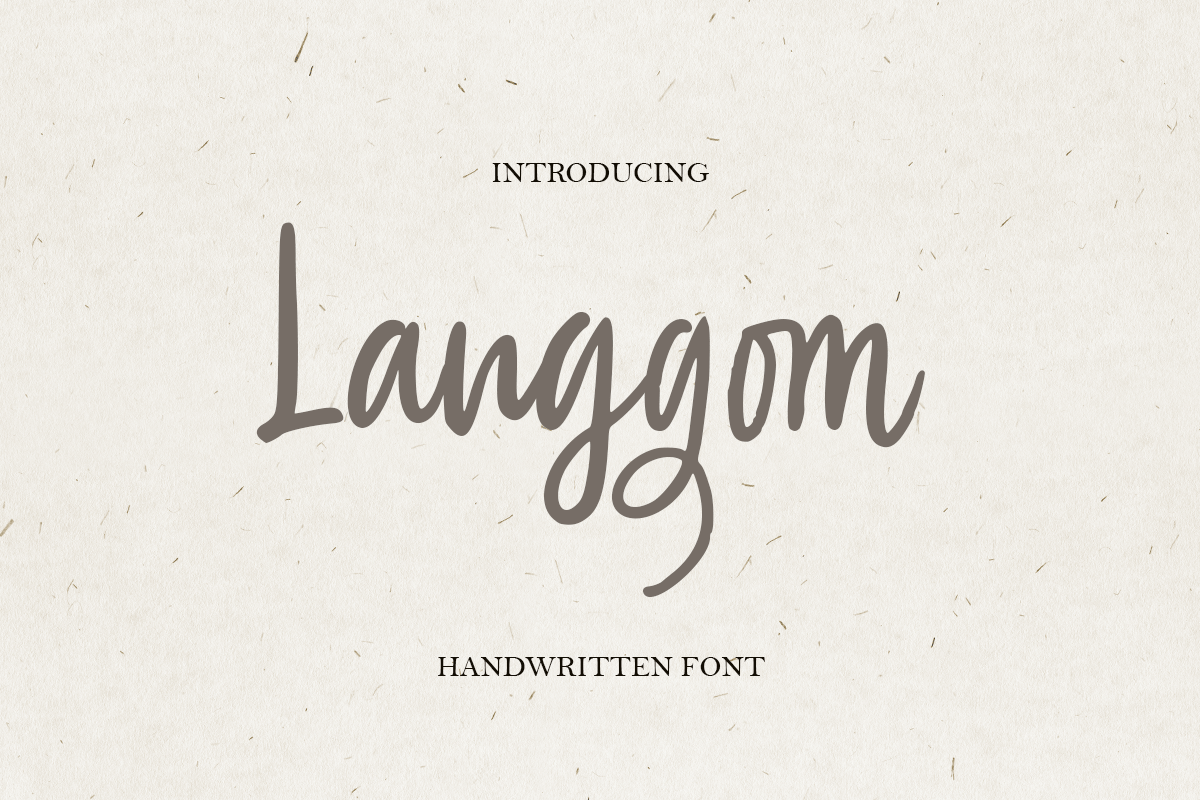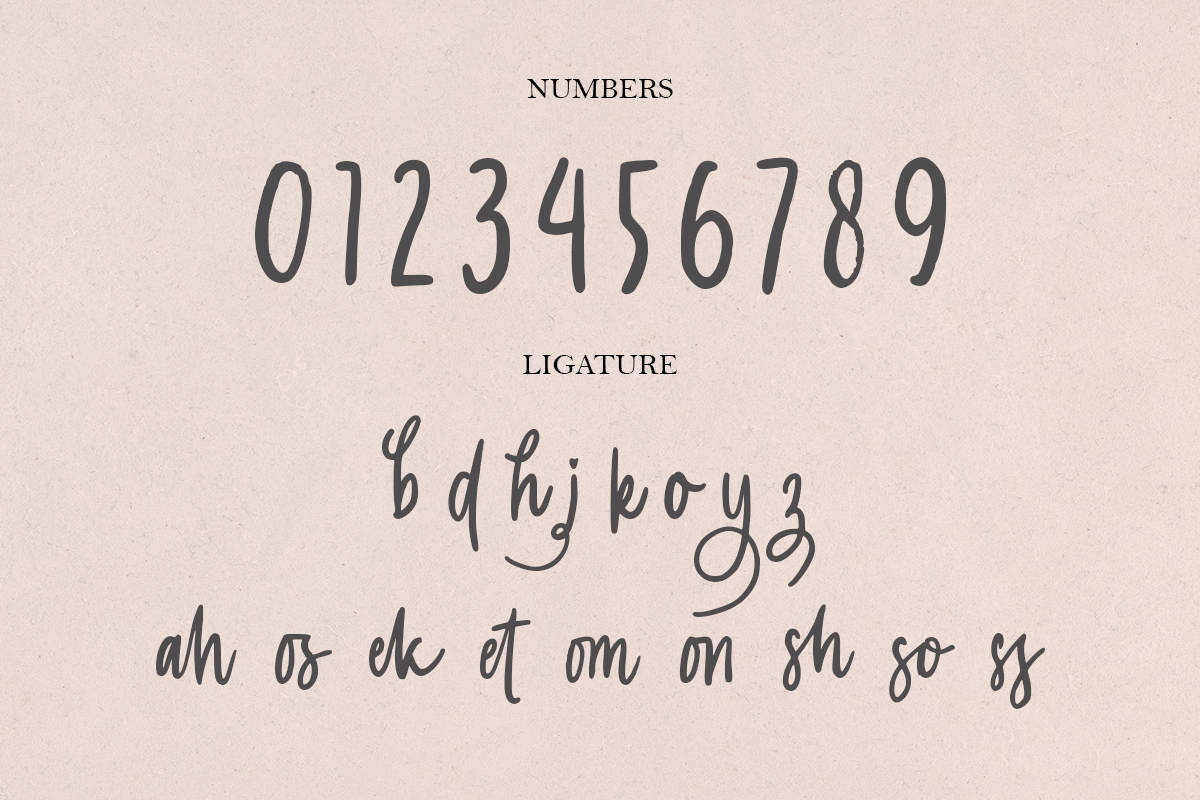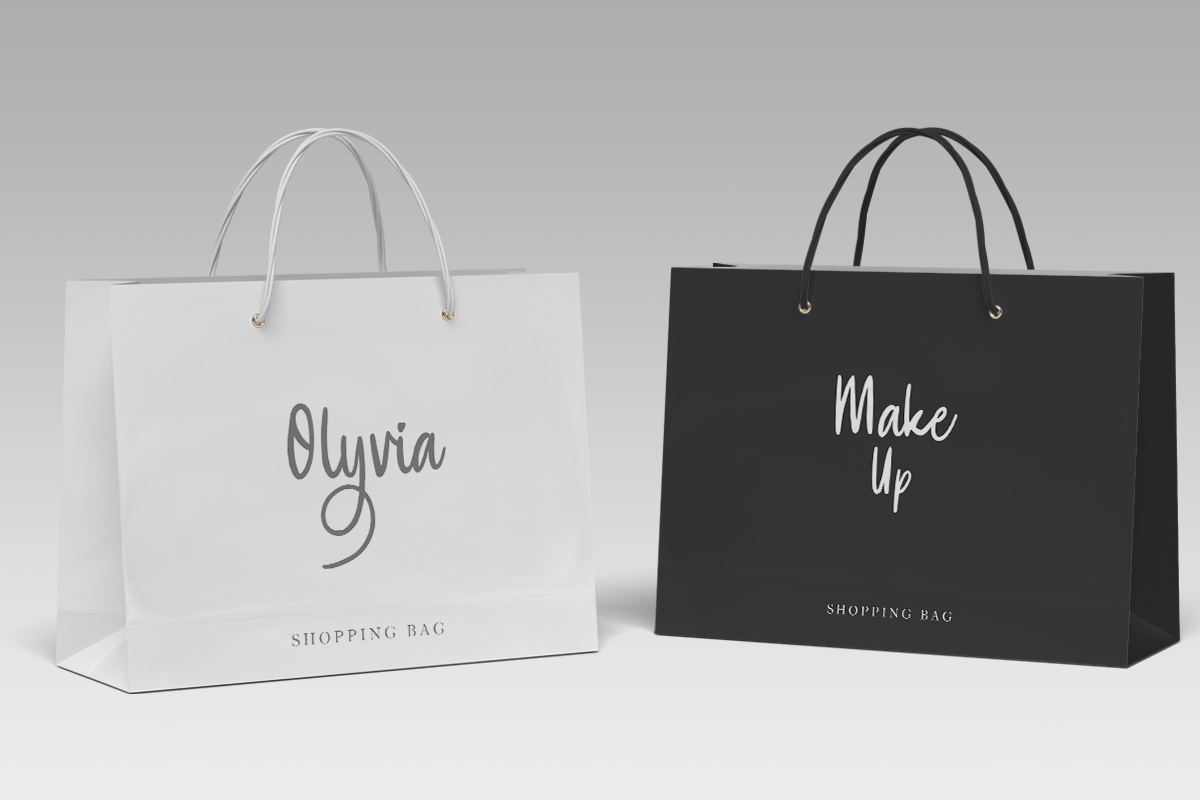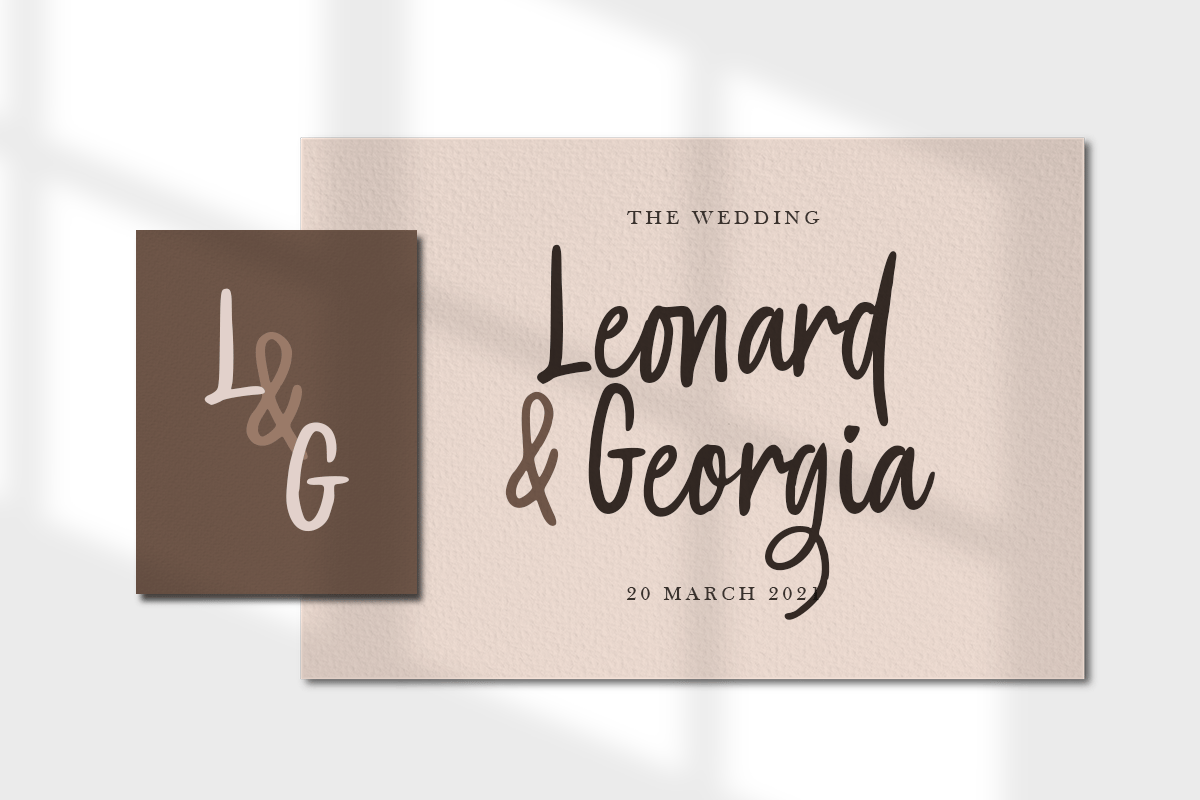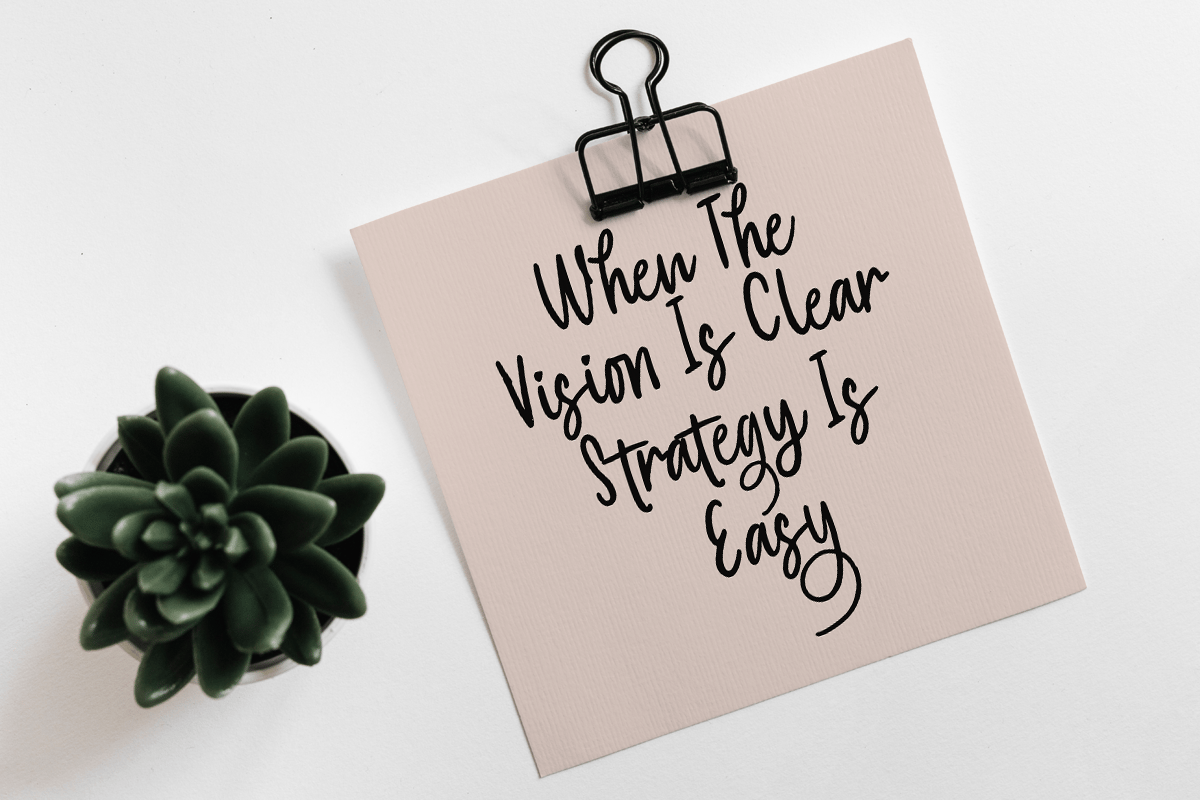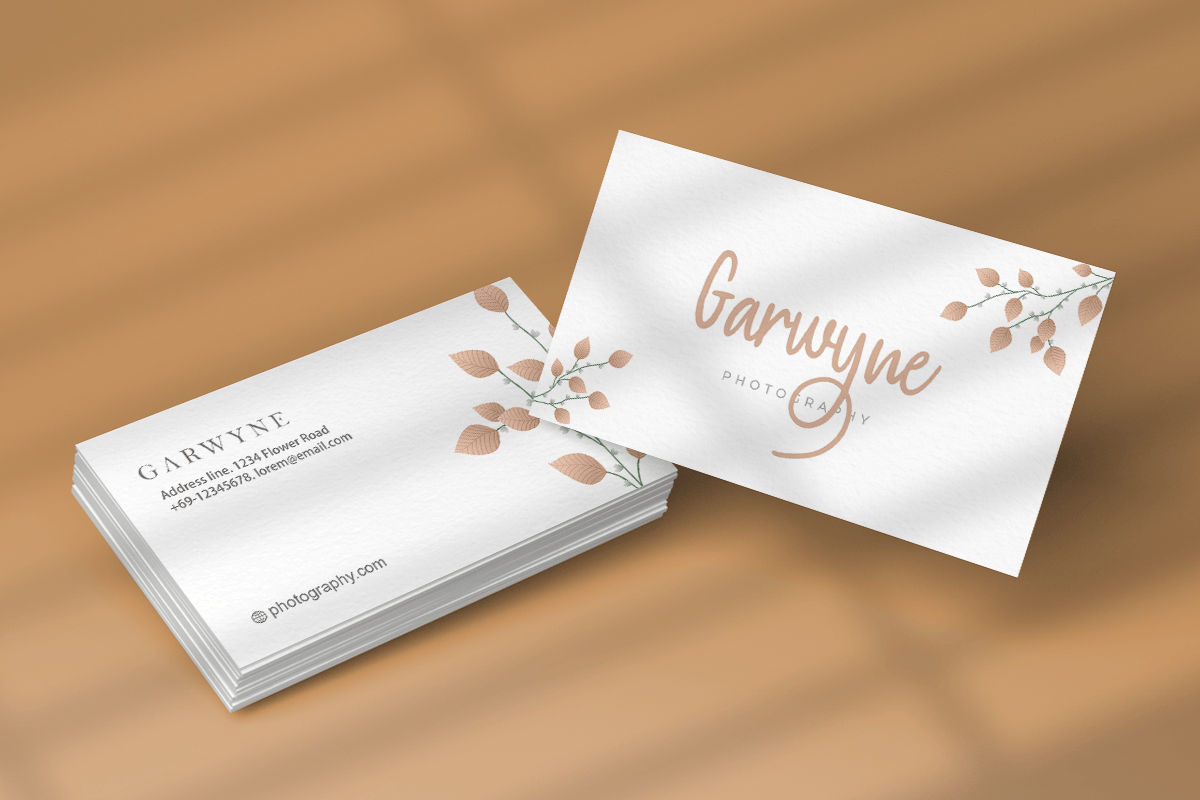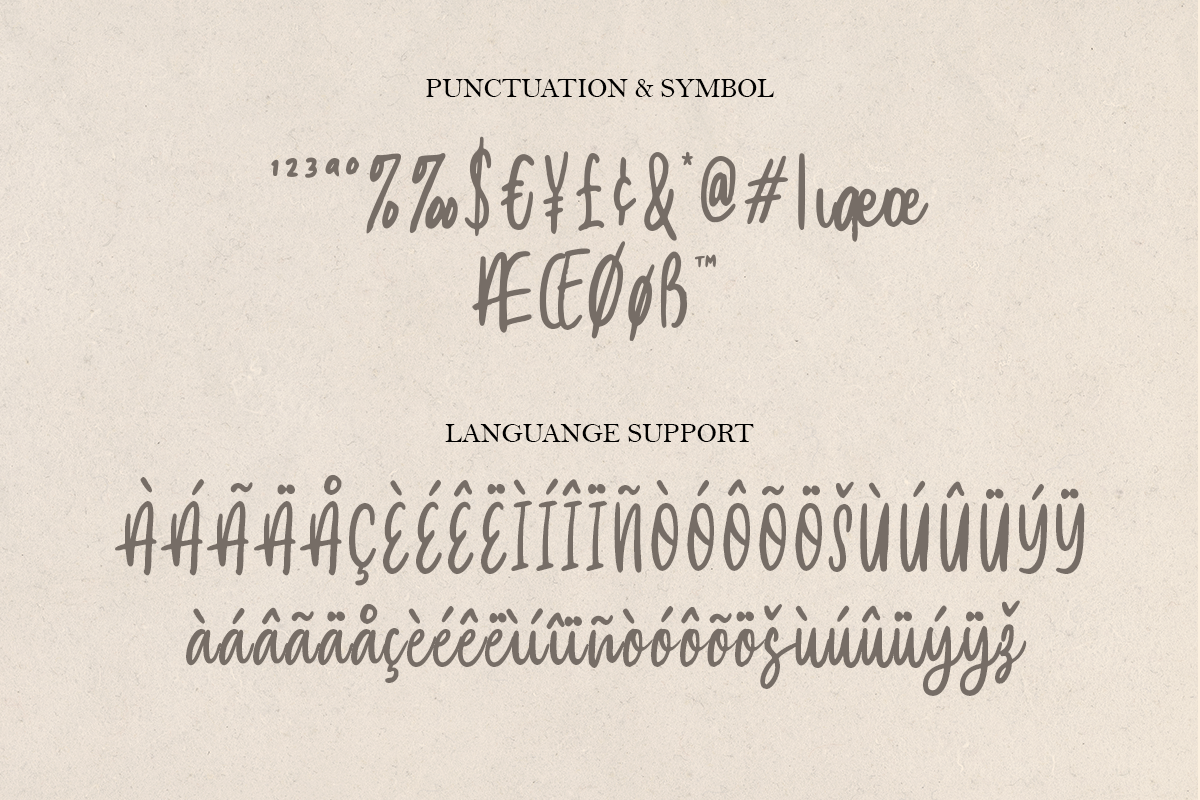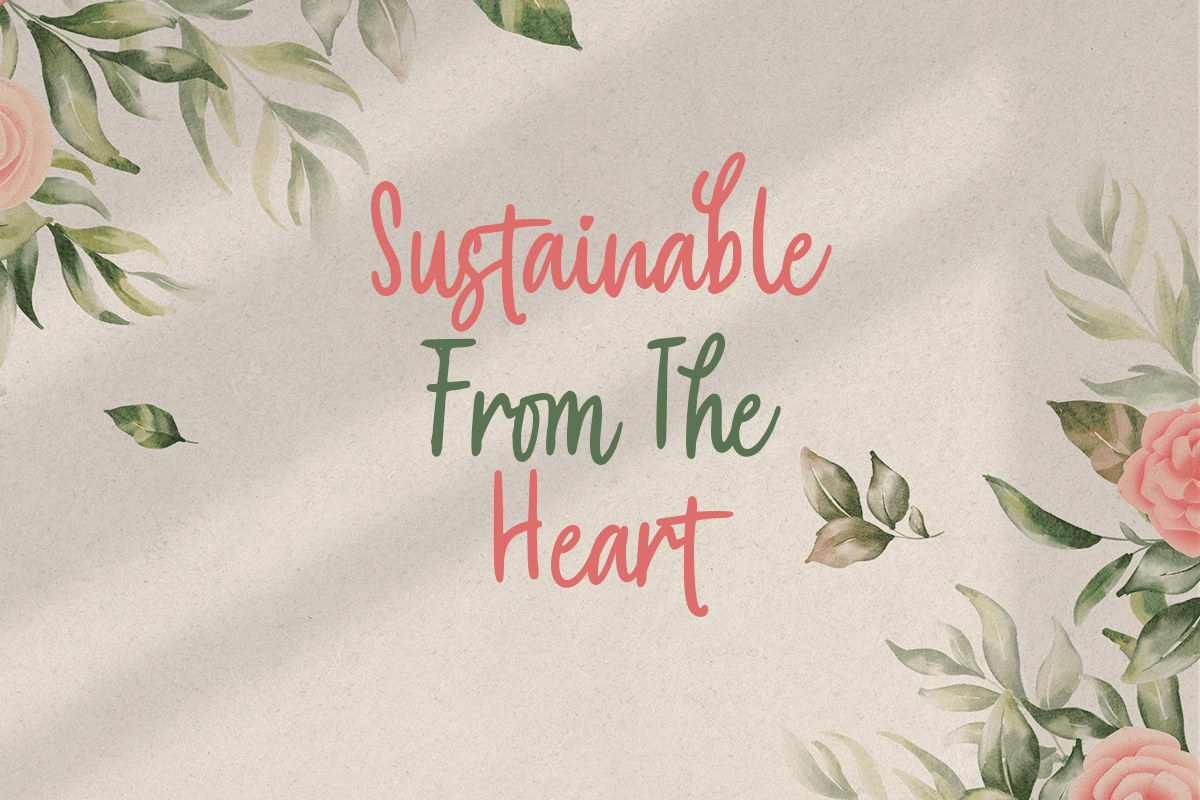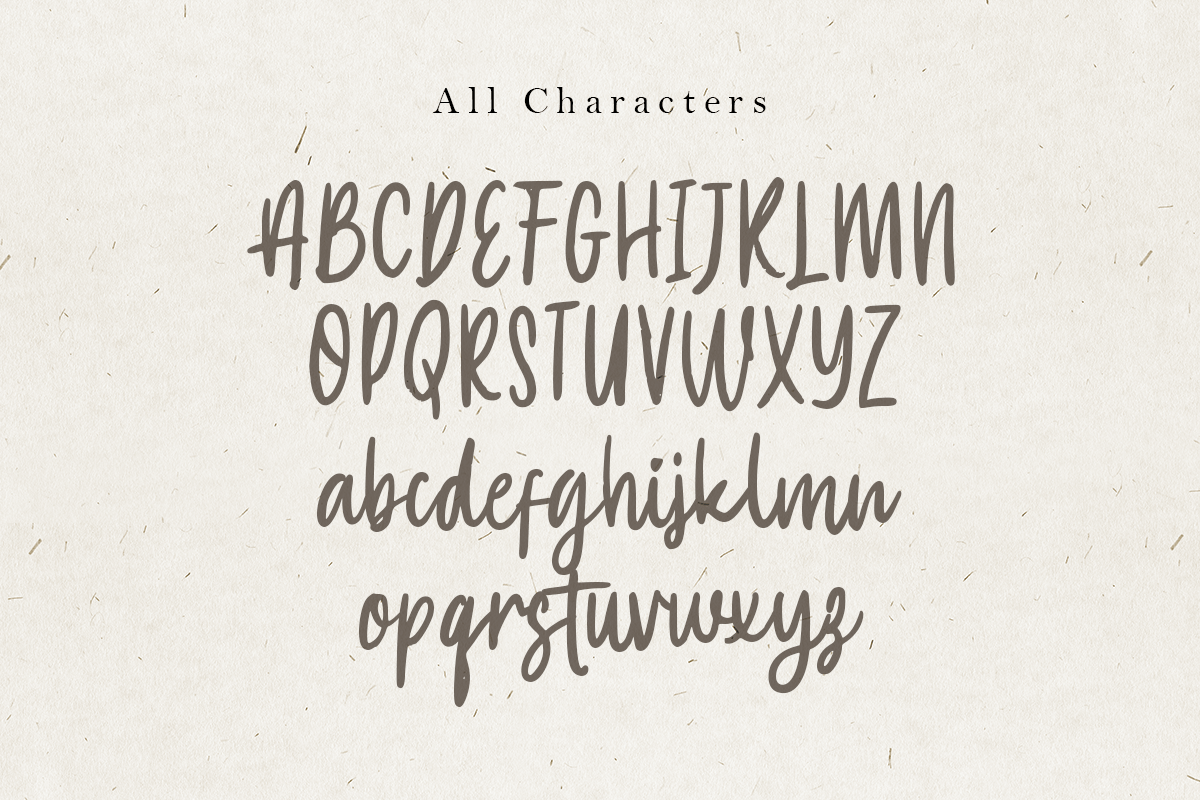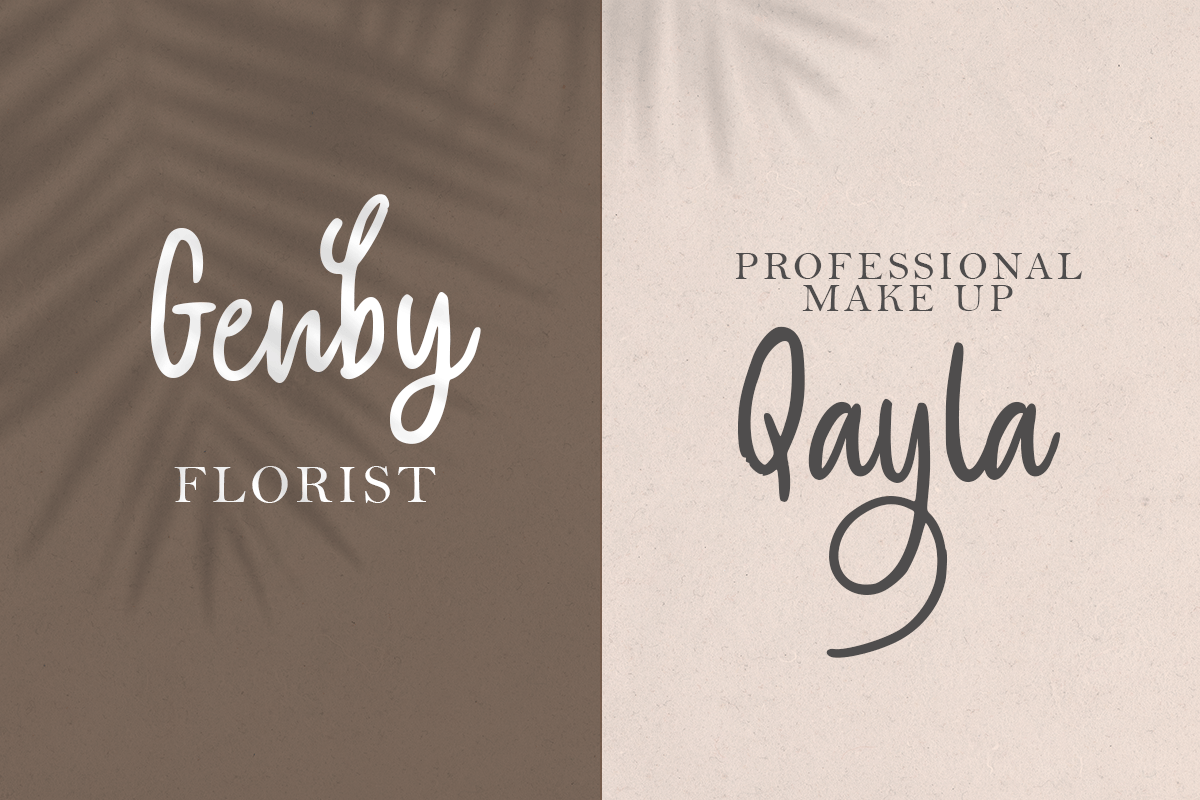
Langgom – Curly Unique Handwritten Font
Langgom is A A Curly Unique Handwritten Font with nice and cheerful style and so charming. This font specially crafted for your branding, quotes design projects or cute logo, unique, modern for any designs such as product, merchandise, and so many more with easy to use but unique results are so cute.